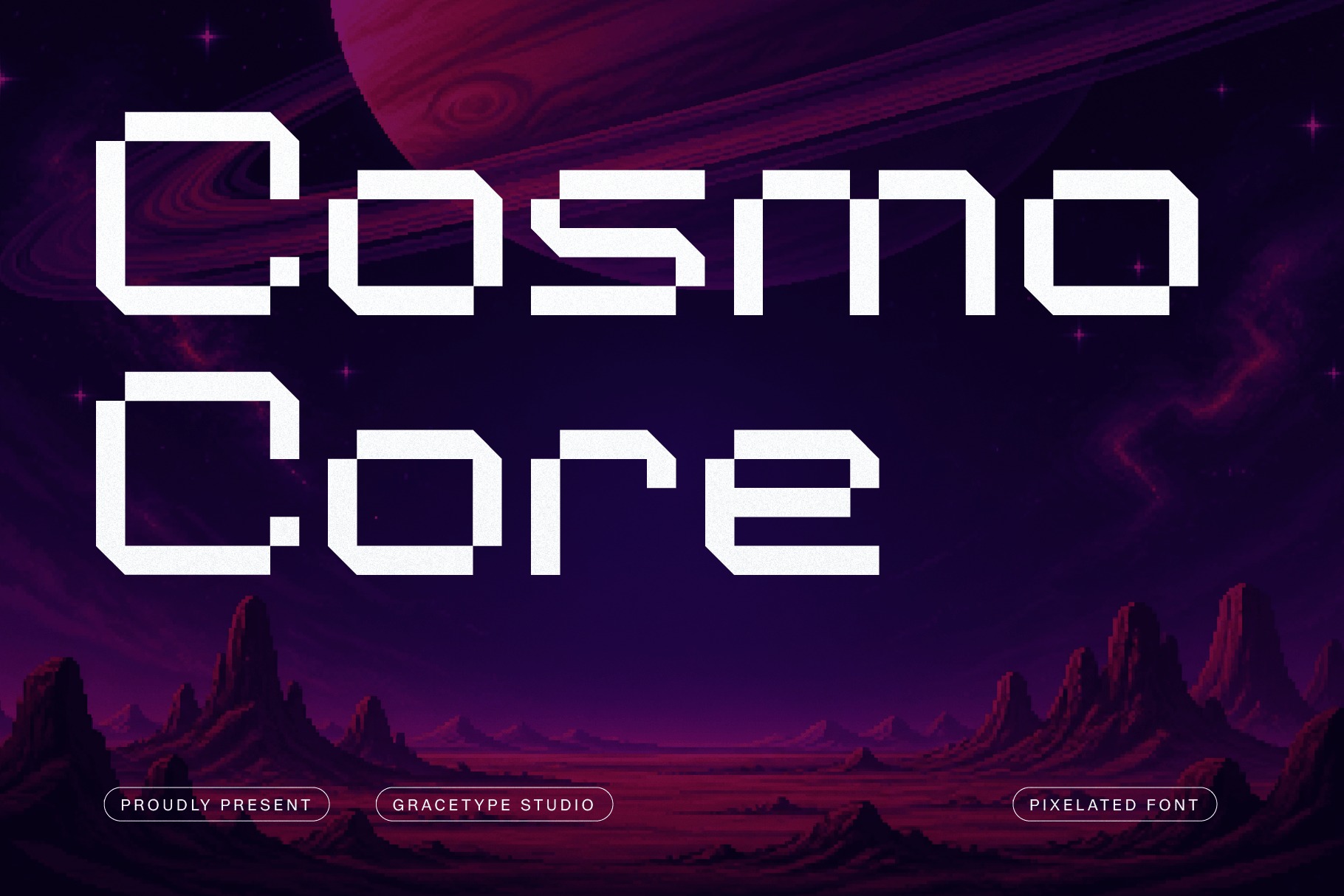
Cosmo Core – Pixelated Font
Cosmo Core – Pixelated Font brings a balanced structure and contemporary look, making it suitable for both digital and print design. Cosmo Core | Pixelated Font, from Gracetypestudio, suitable for any projects such as: logos, branding projects, homeware designs, product packaging, mugs, quotes, posters, shopping bags, t-shirts, book covers, name card, invitation cards, greeting cards, label, photography, watermark, special events, and all your other lovely projects that need a Pixelated taste.